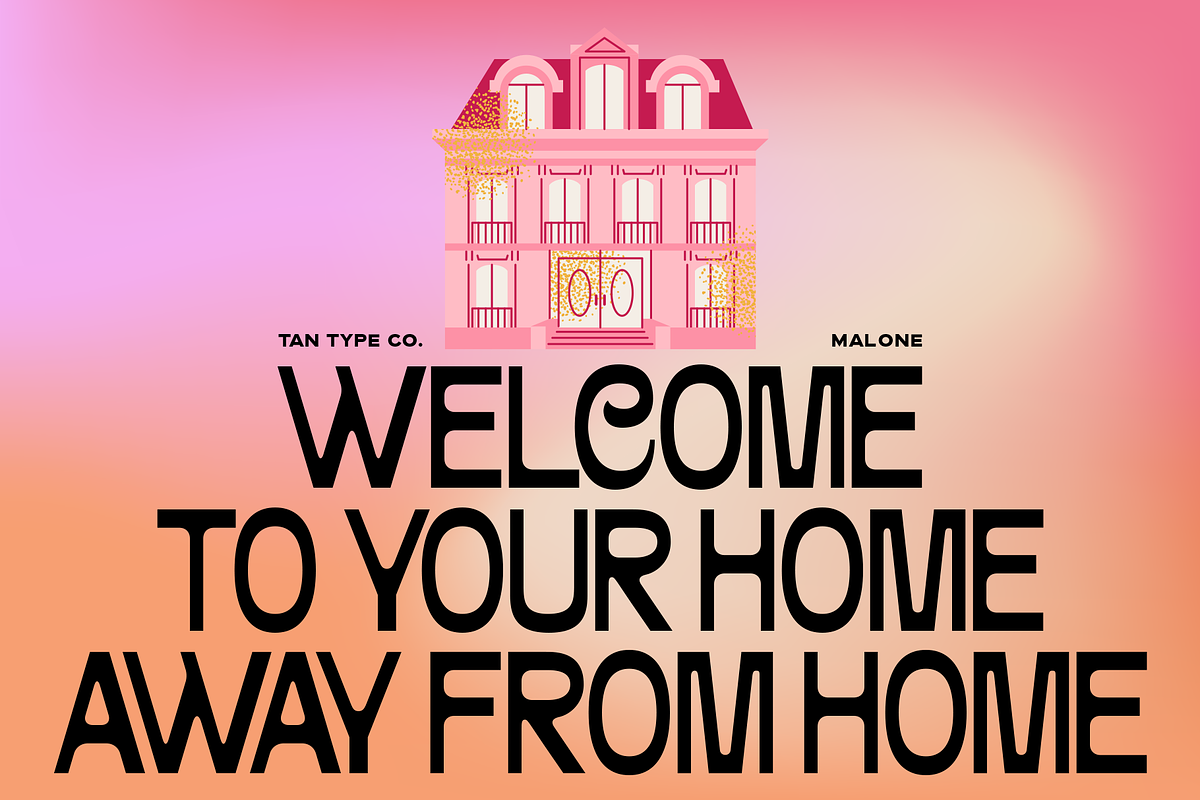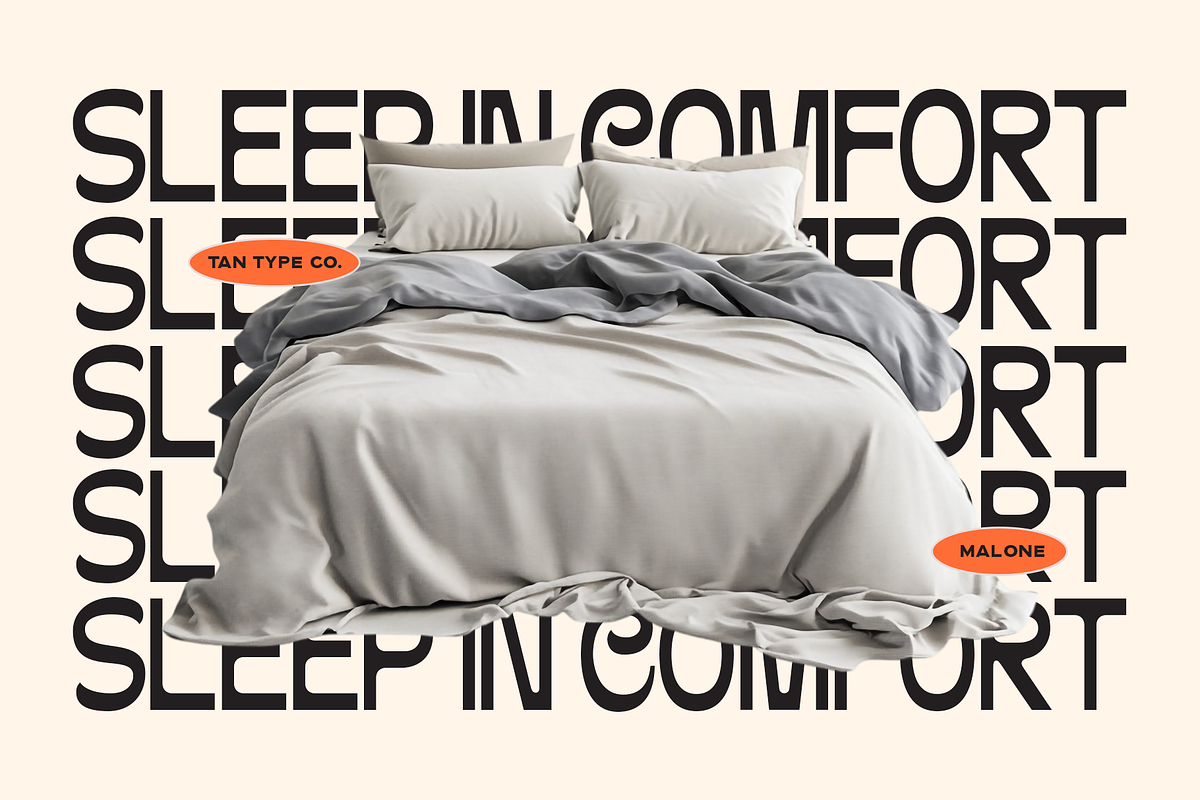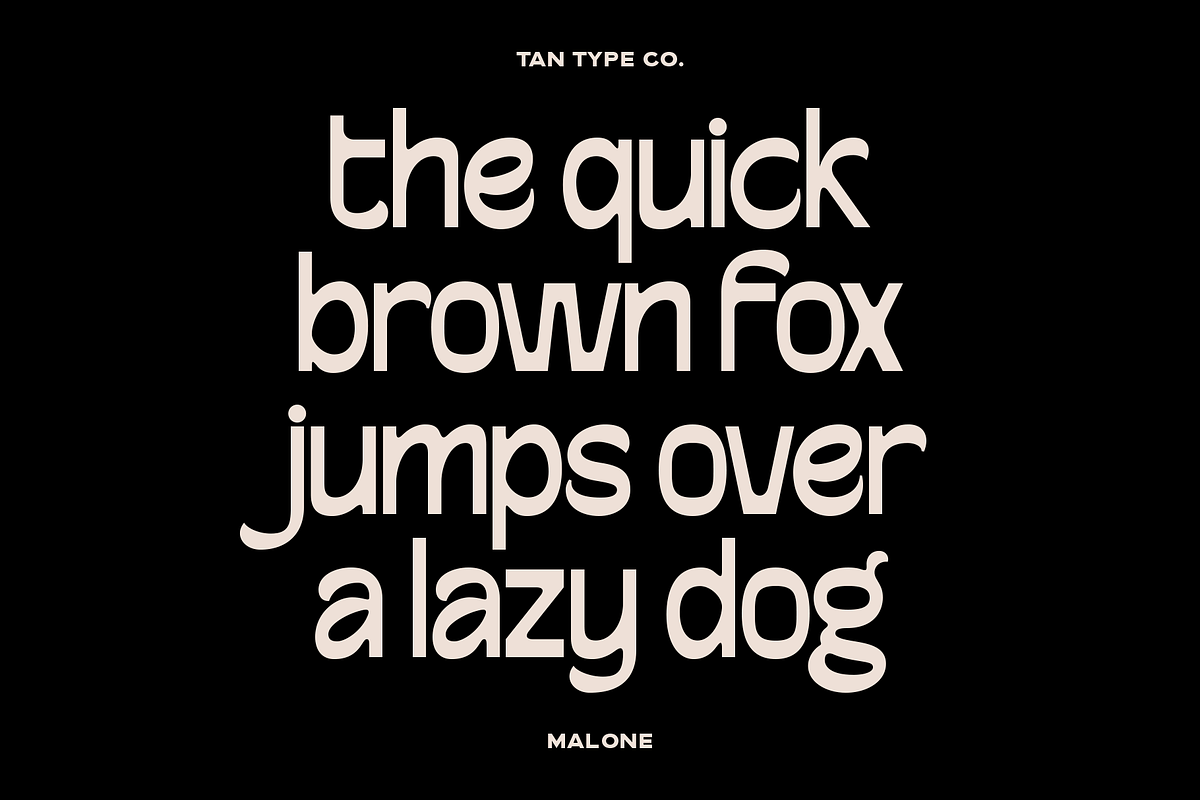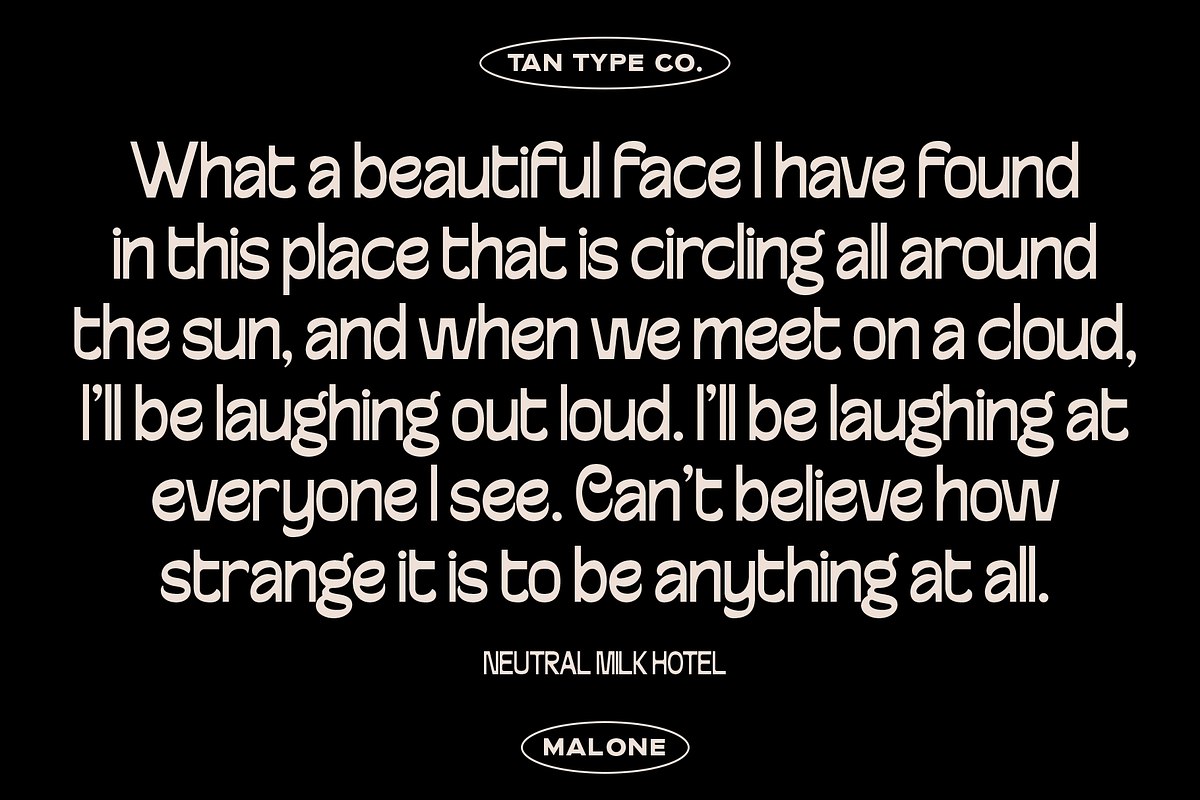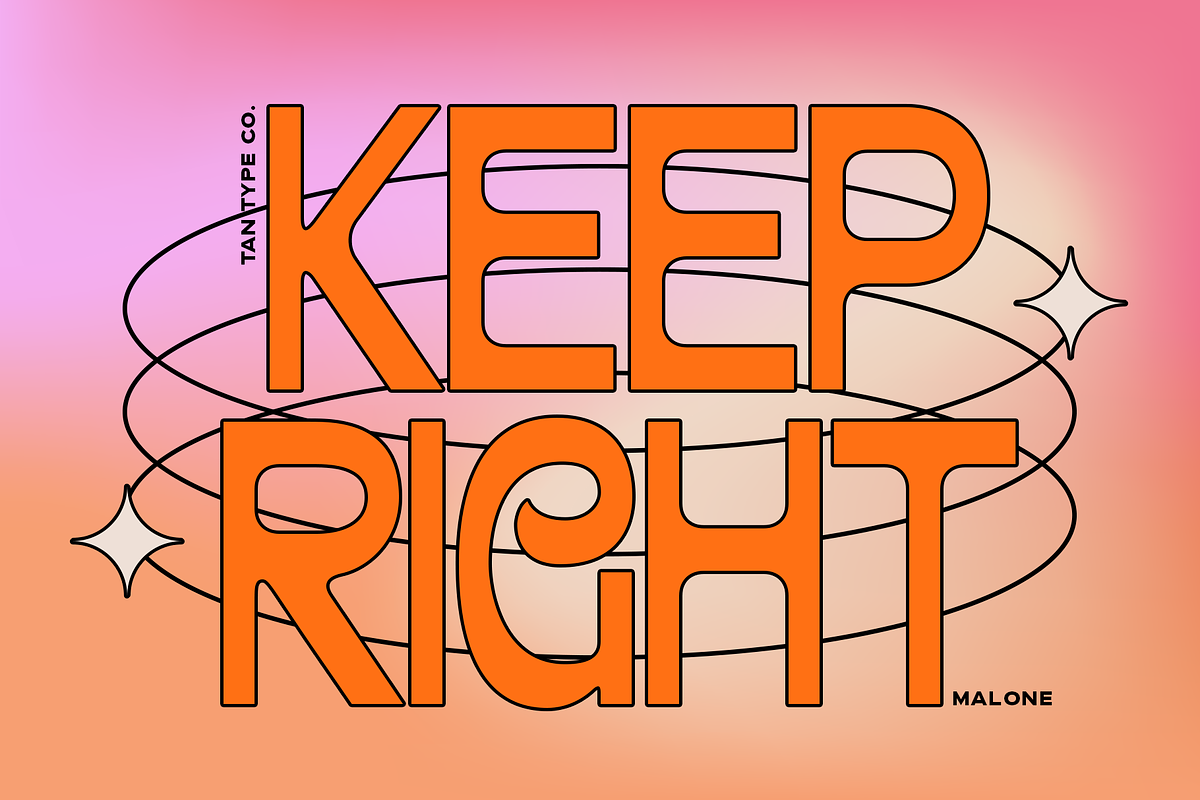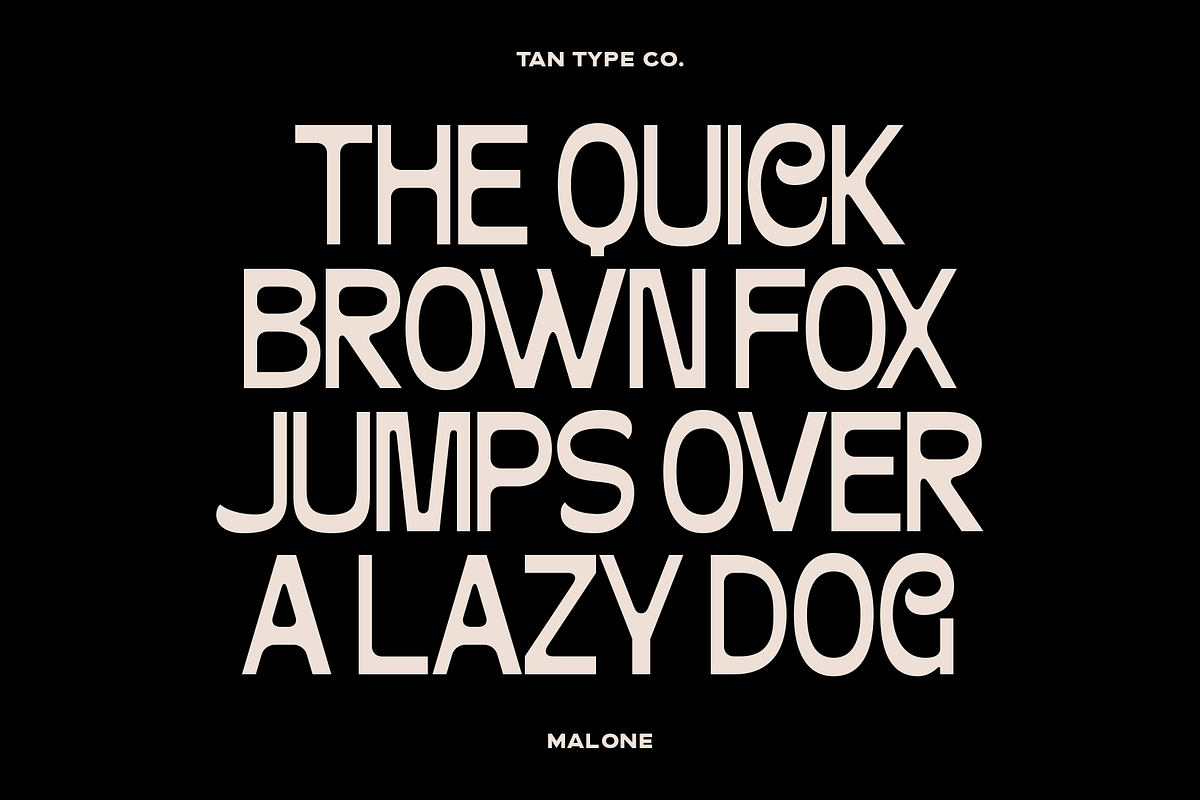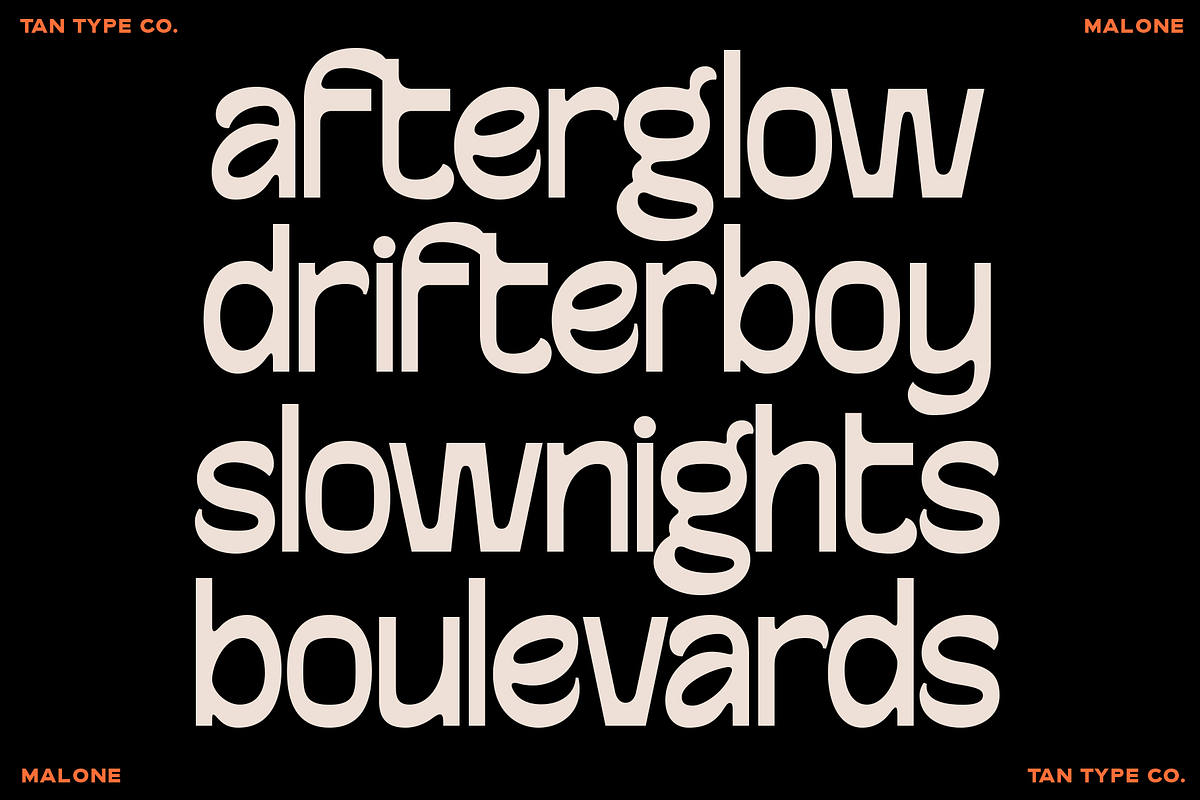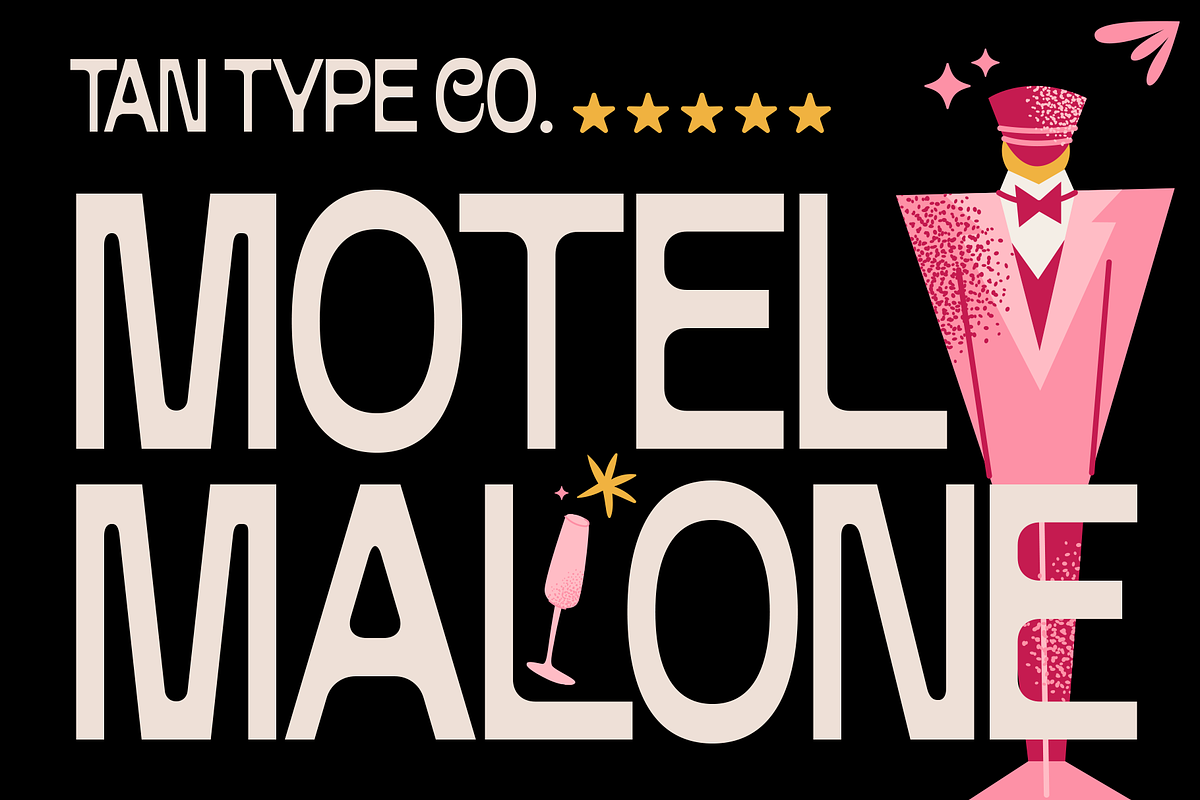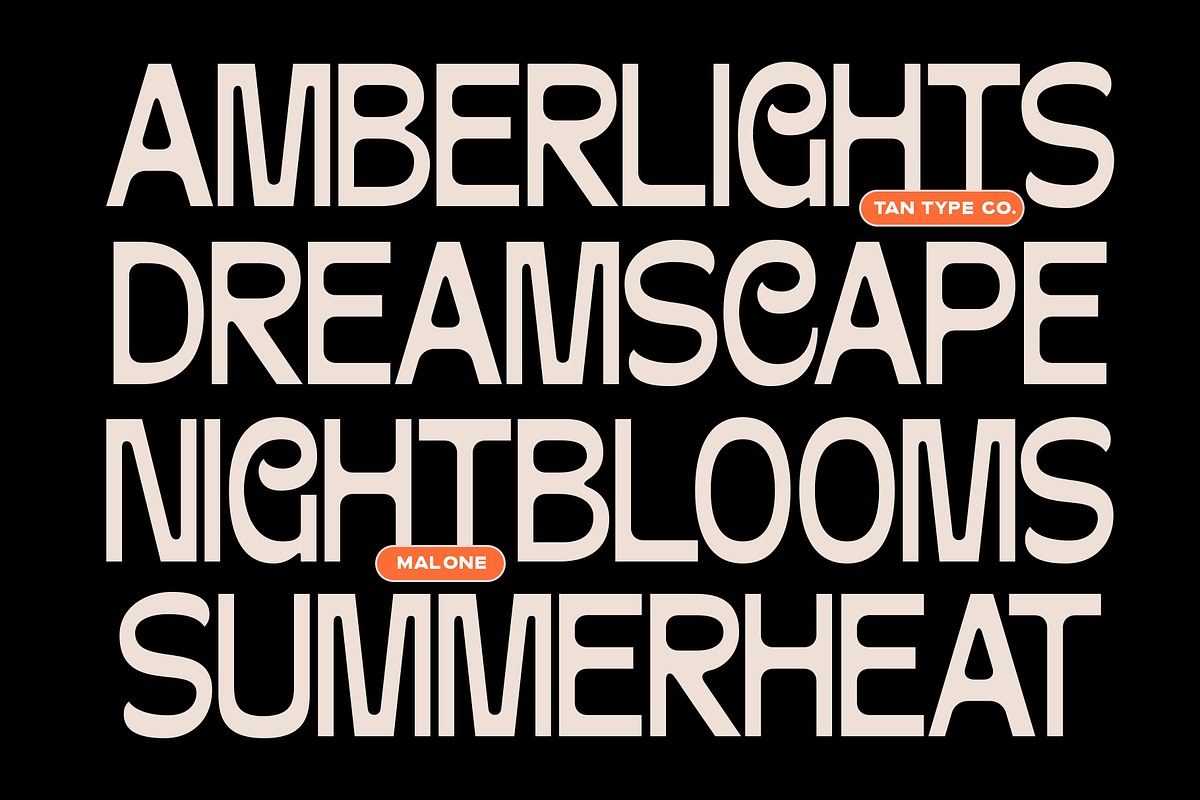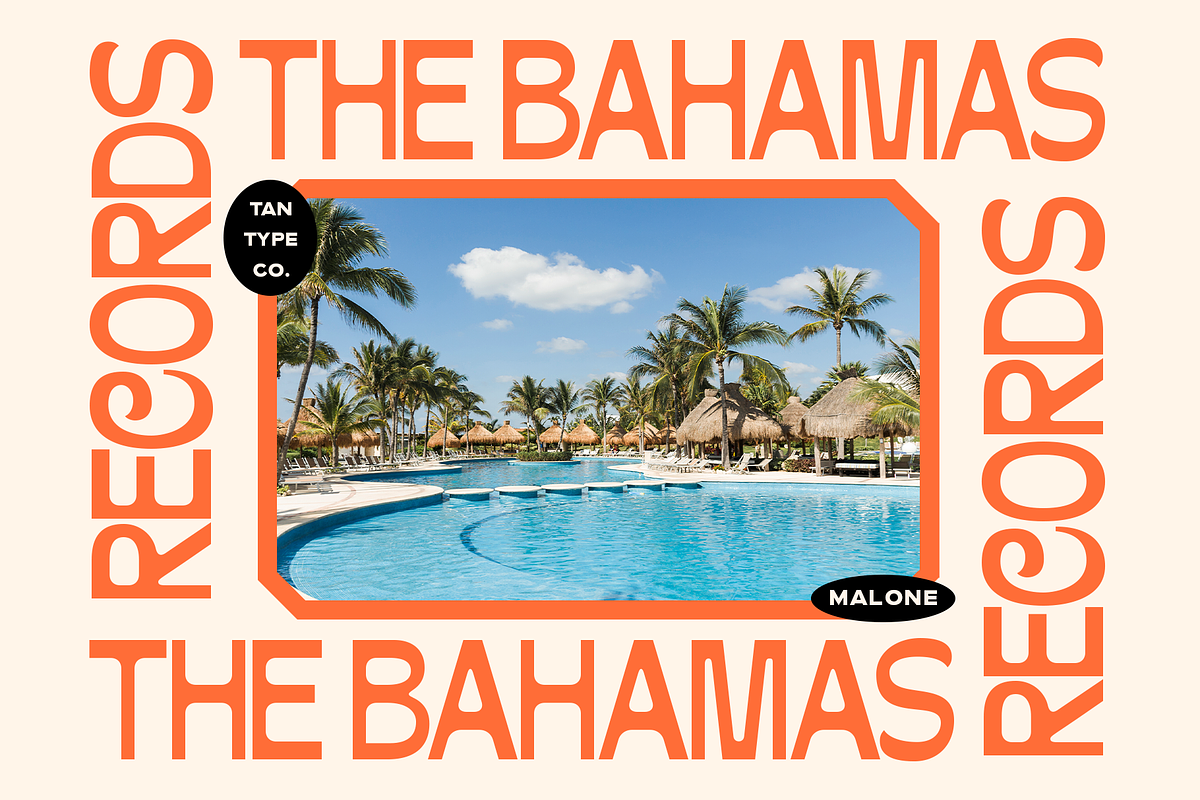
TAN-MALONE
TAN-Malone is a retro display font inspired by vintage motel signage, neon-lit streets, and old Hollywood charm. Designed with tall proportions and soft geometric curves, it captures the feeling of roadside Americana with a playful Art Deco touch.
Bold yet approachable, Motel Malone works beautifully for logos, packaging, posters, editorials, restaurant branding, and statement headlines. Its nostalgic character makes it perfect for projects that need a little glamour, warmth, and late-night personality.
From pink neon diners to cinematic title cards, Motel Malone was made to stand out.